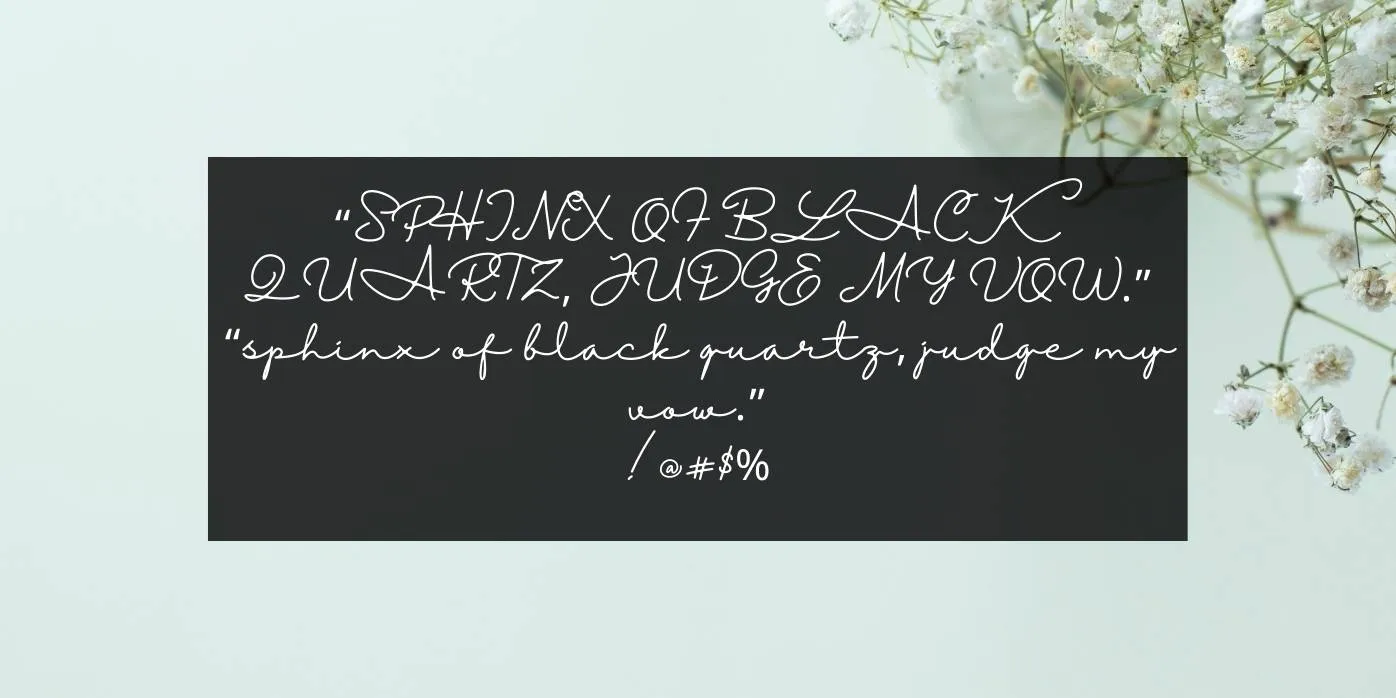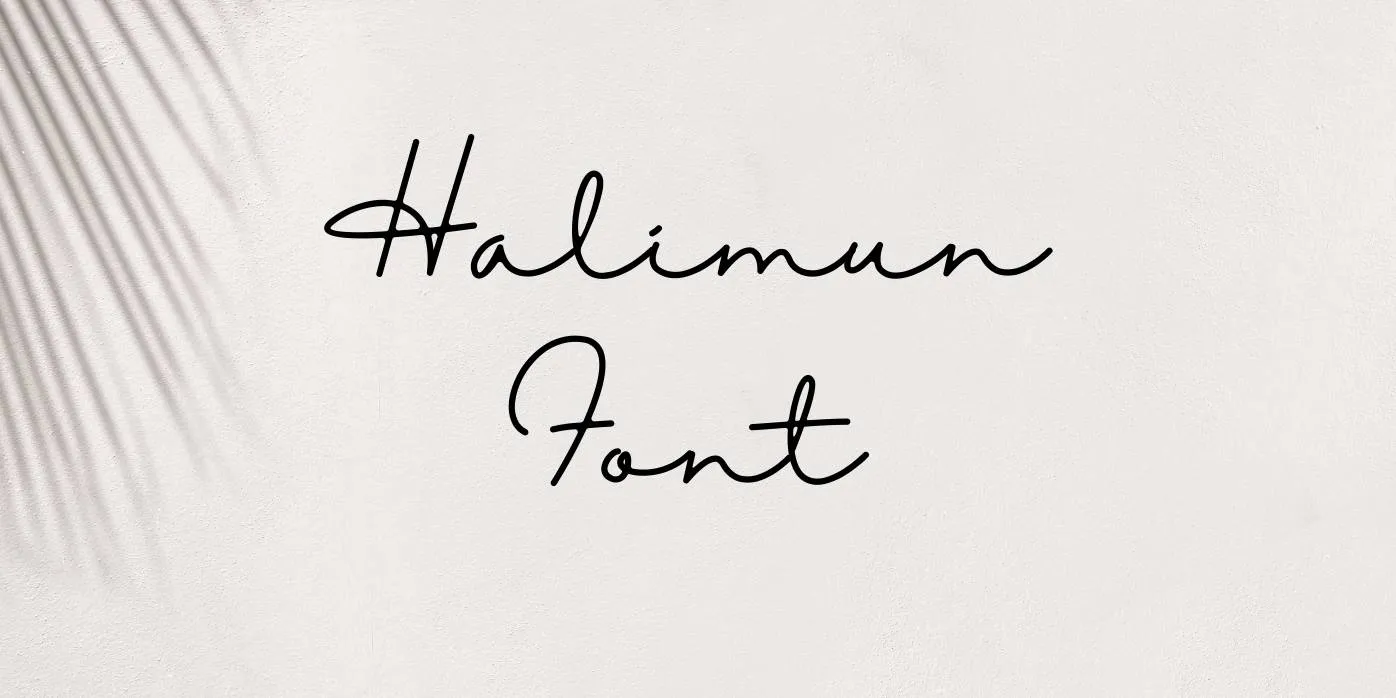
Halimun Font
In this post, we are going to introduce a stylish typeface known as Halimun Font. This family was designed by Creatype Studio. This typeface belongs to the handwritten family. The handwritten family is best for making designs like invitations, logos, product packaging, and much more.
This family contains three weights: Regular, Bold, and Light. The regular weight has 342 characters while the bold and light weights have 356 characters each. All of these weights include Latin character support. The copy and paste function of this family is very classic for all designs.